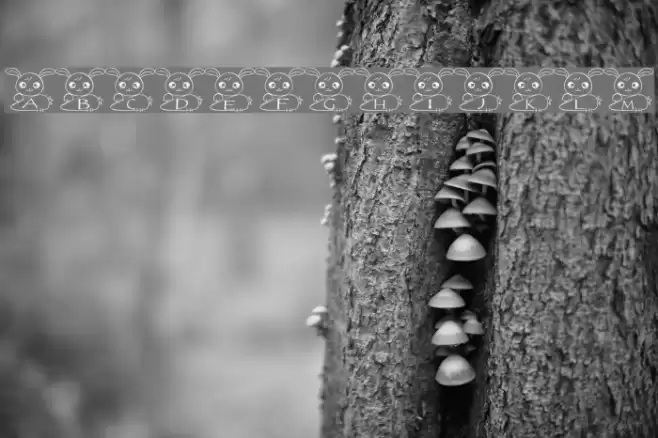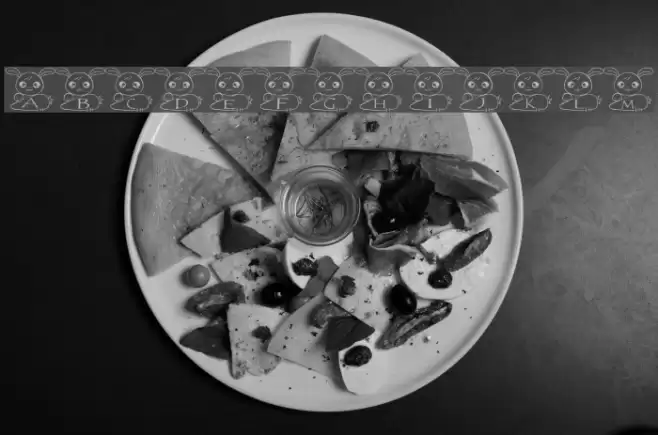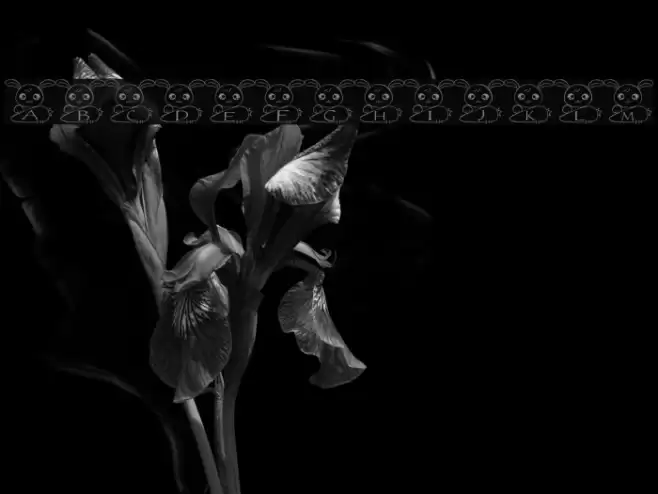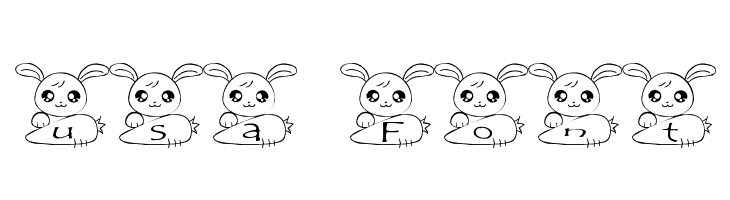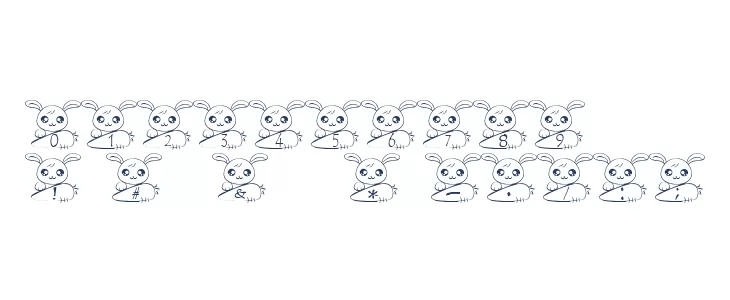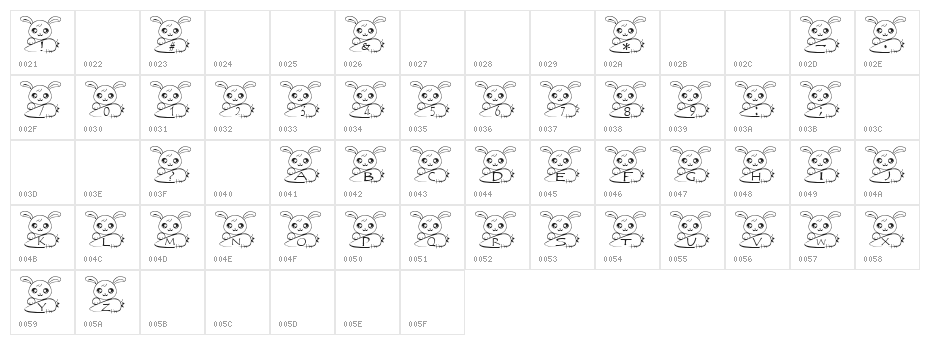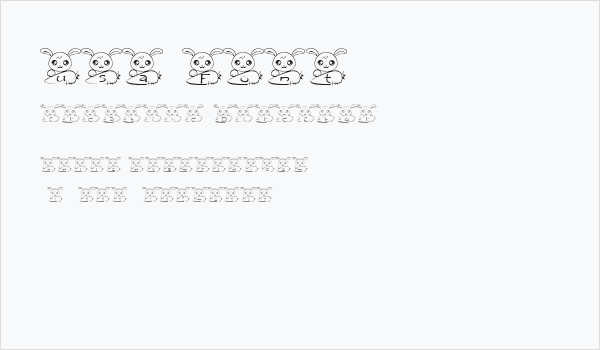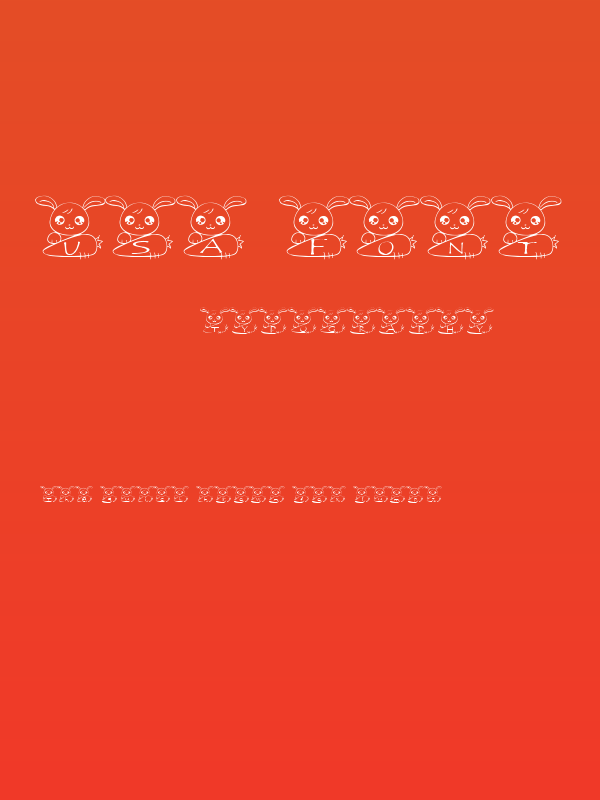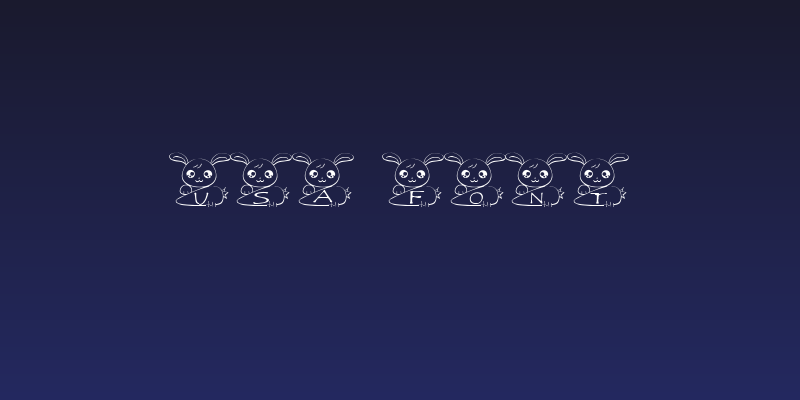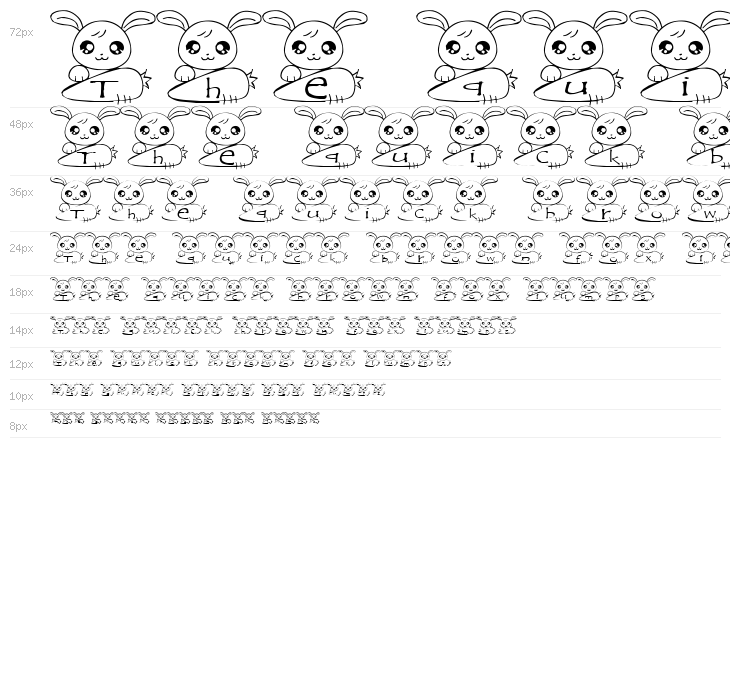
usa Font Font
usa Font Description
This playful and whimsical font features each character nestled within a cute, cartoonish bunny design. The letters and numbers are integrated into the bunny's body, creating a unique and charming appearance. The font is highly decorative, with each character maintaining a consistent style that includes rounded shapes and a friendly expression on the bunny's face. The overall design is light-hearted and suitable for projects that require a fun and engaging aesthetic. The characters are evenly spaced, ensuring readability while maintaining the decorative theme.
A whimsical font with characters inside cartoon bunny designs from Images & Symbols fonts.
- Proposed Projects: Ideal for children's books, playful invitations, greeting cards, and educational materials.
- Overall Style: Playful, Whimsical
- Use Case: Headlines, Decorative text